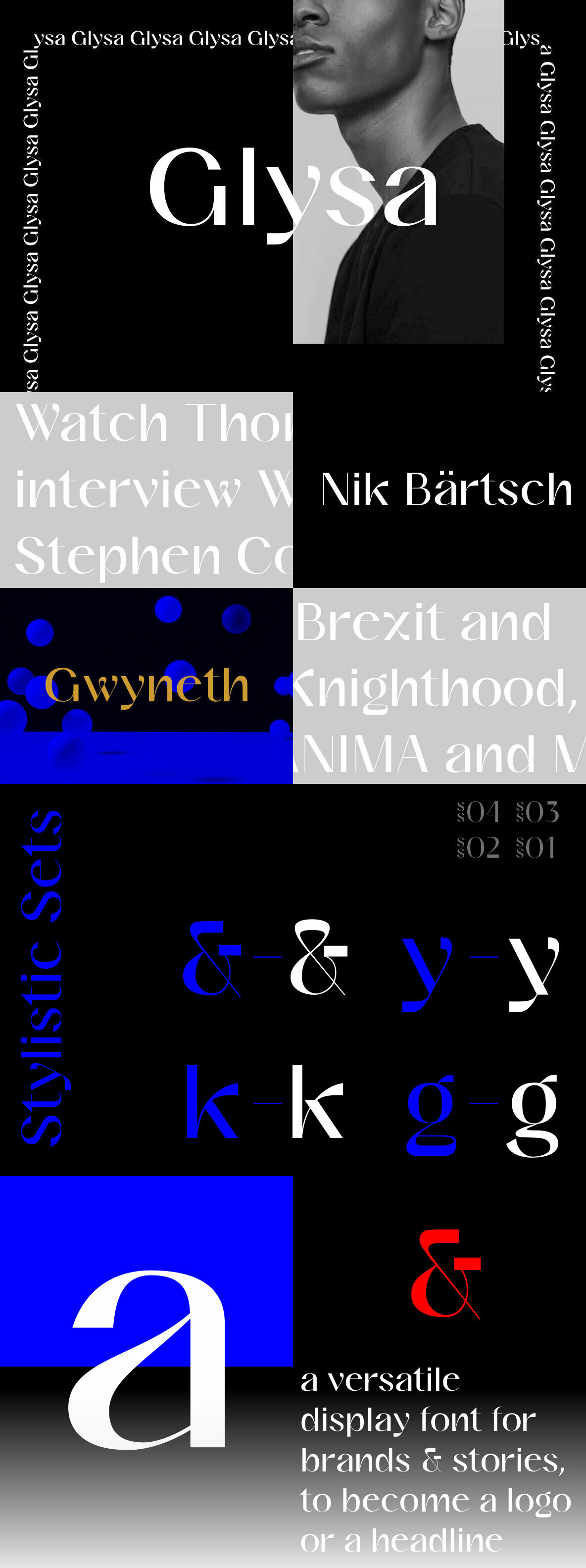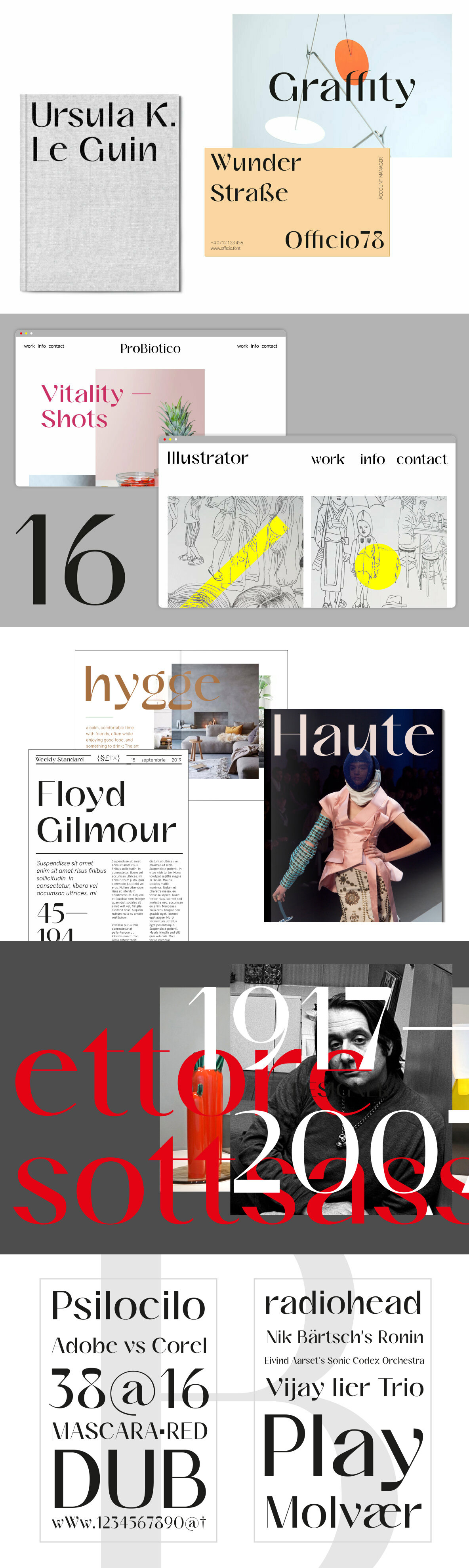
Glysa, a playful yet elegant typeface created by font designer Victor Bartis.
Designed and published just recently by typeface designer Victor Bartis, Glysa is a new font for branding and graphic design projects. Its playful yet elegant style is well suited for logotypes and anything that asks for a touch of unique typography. The Glysa typeface displays personality, vitality, playfulness, but also elegance. Its unique style is a true eye-catcher. The style draws inspiration from peculiar, quirky, and artistic graphic design. Below you can see more of the unique typeface. For those of you who want to purchase the font, just click on one of the following download links.